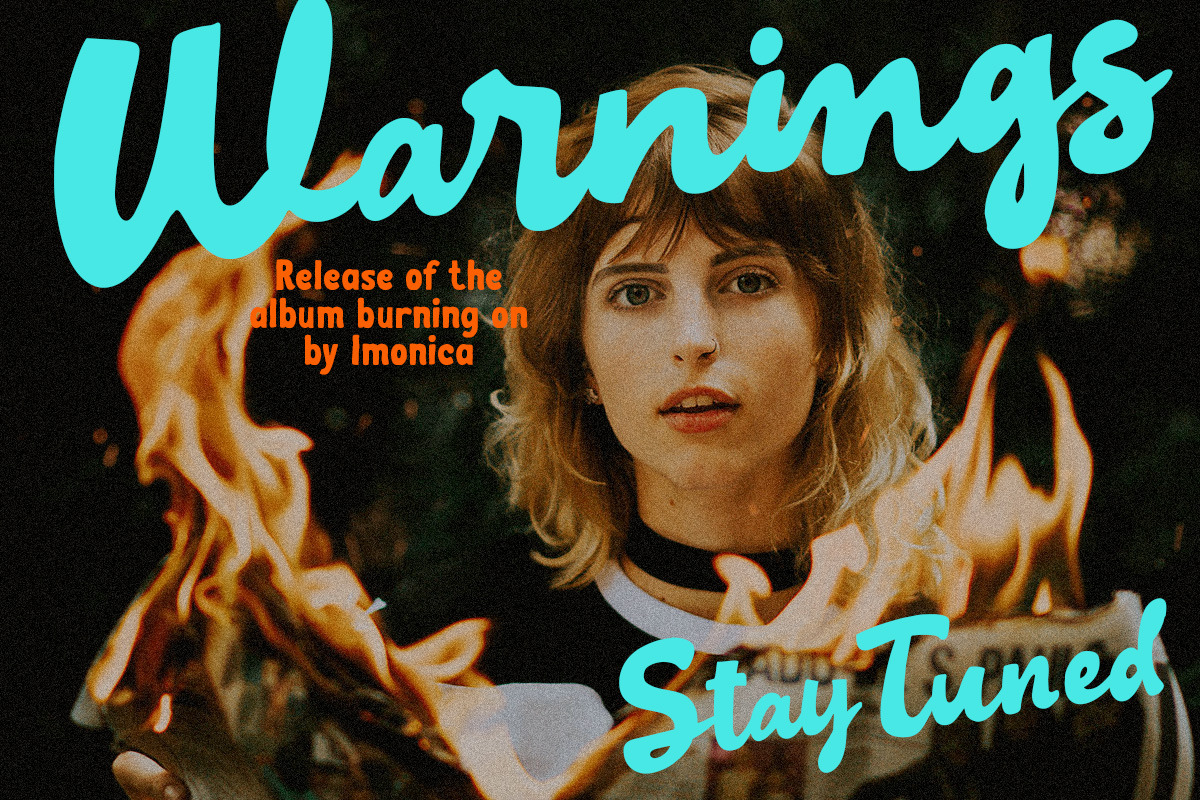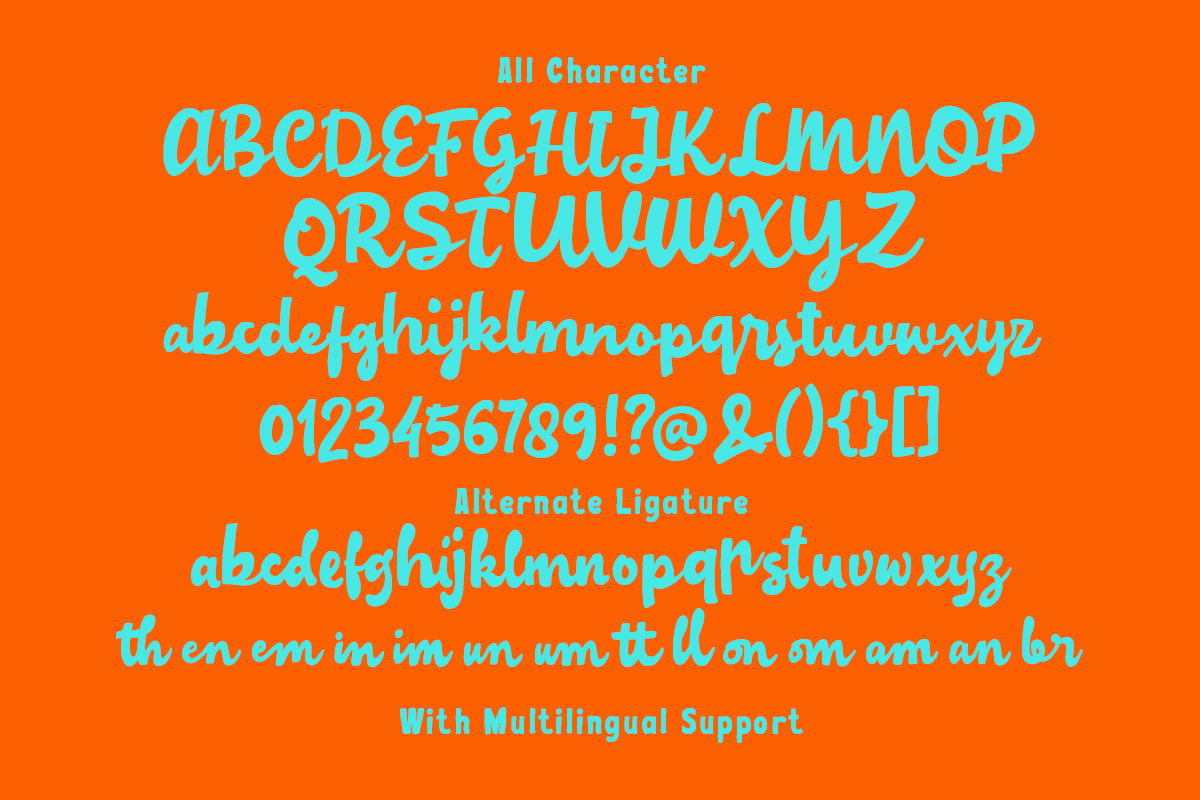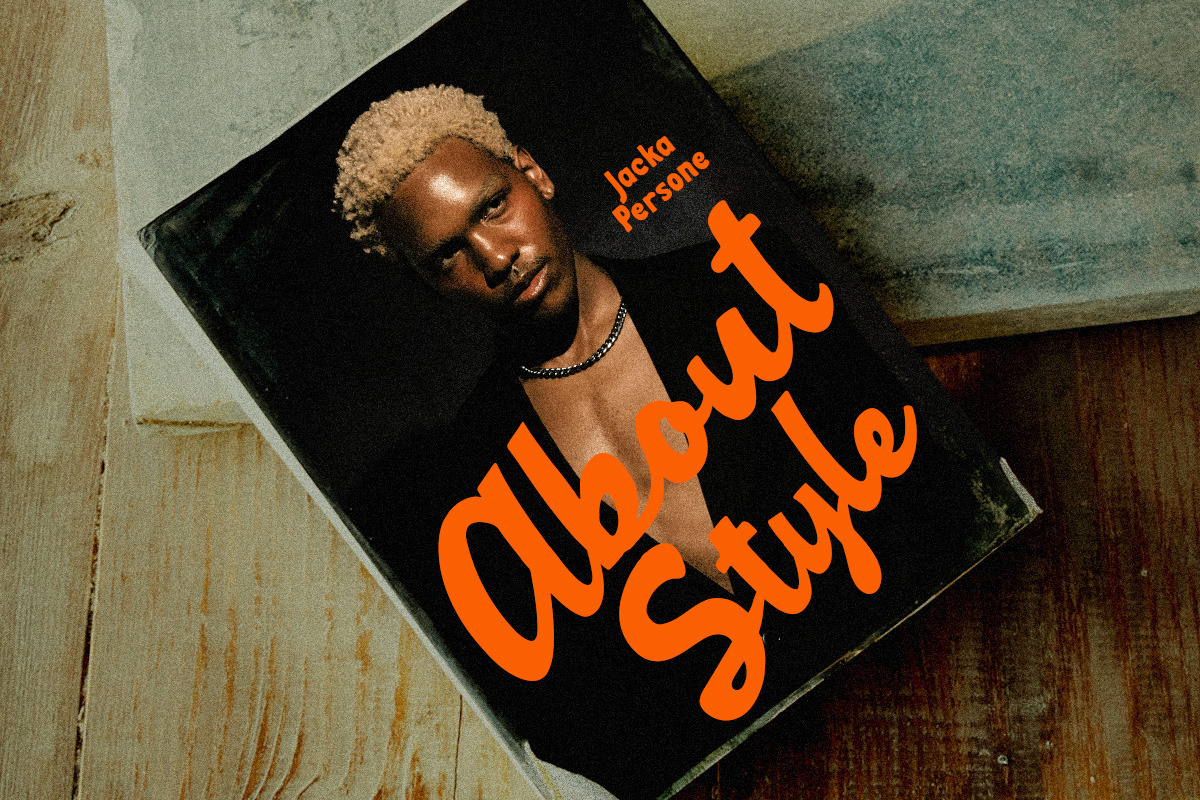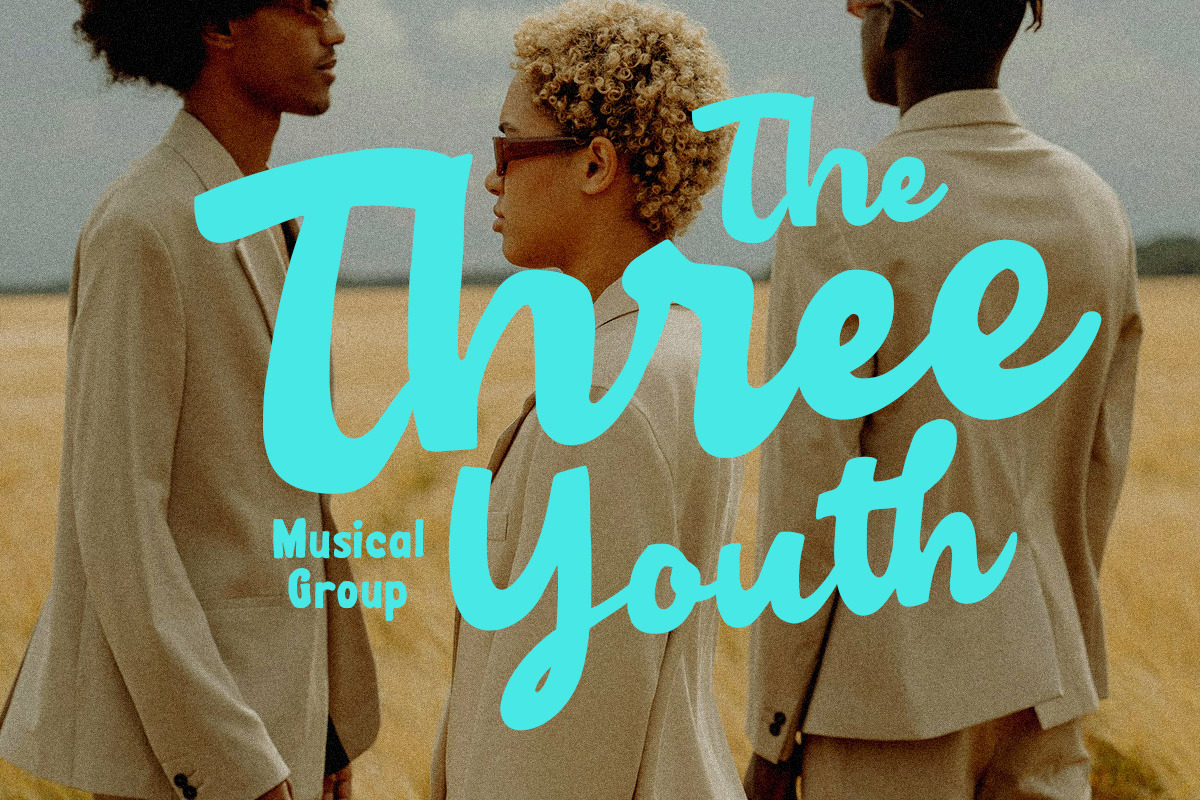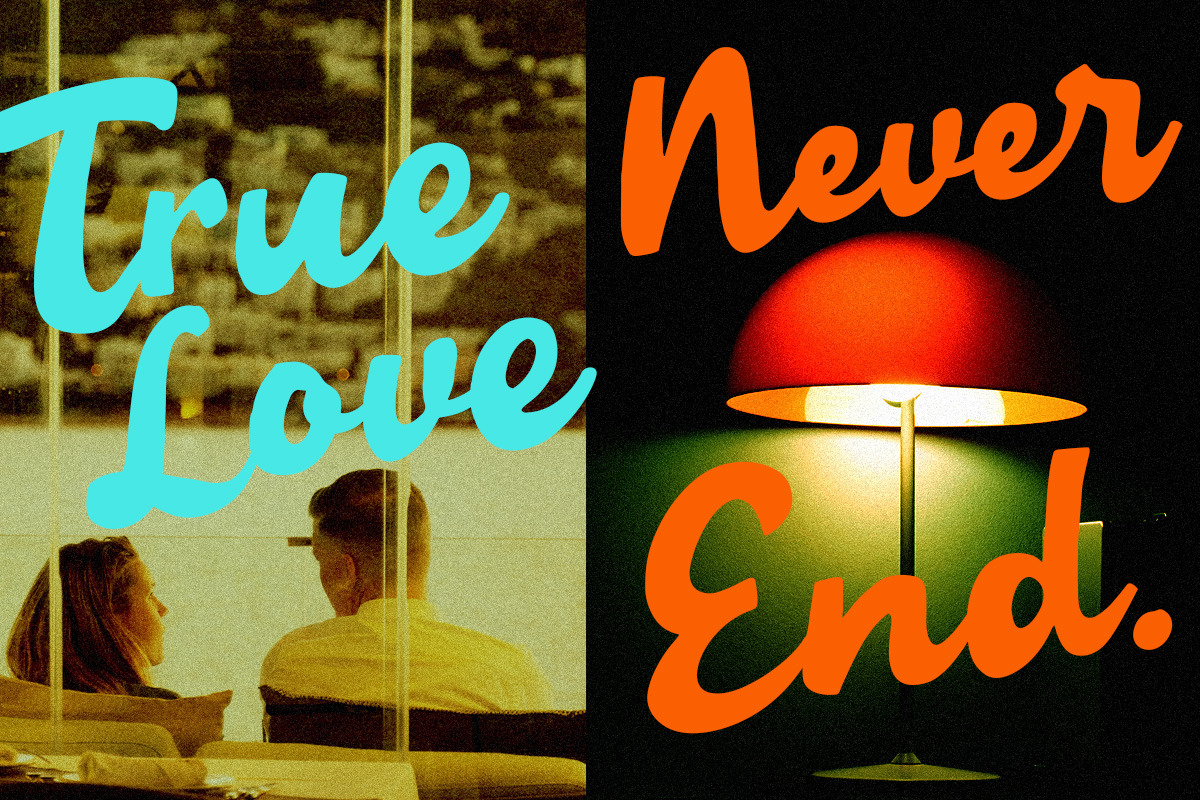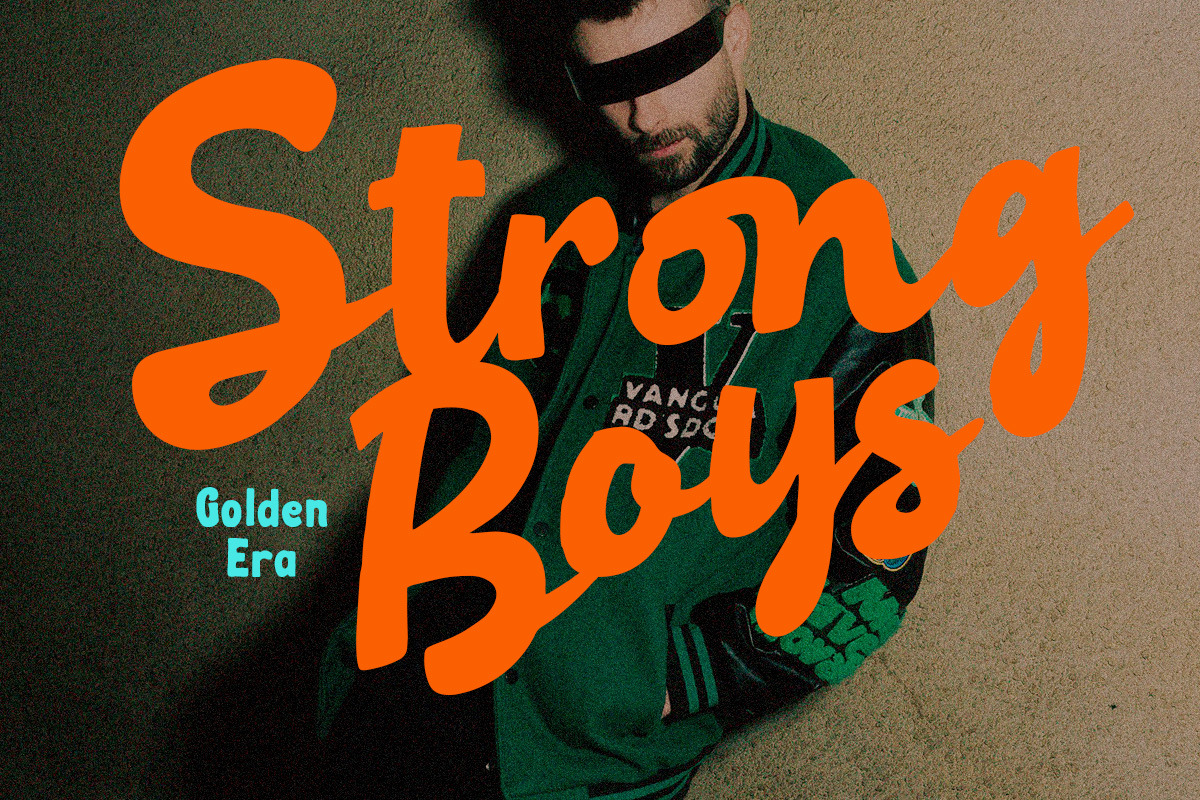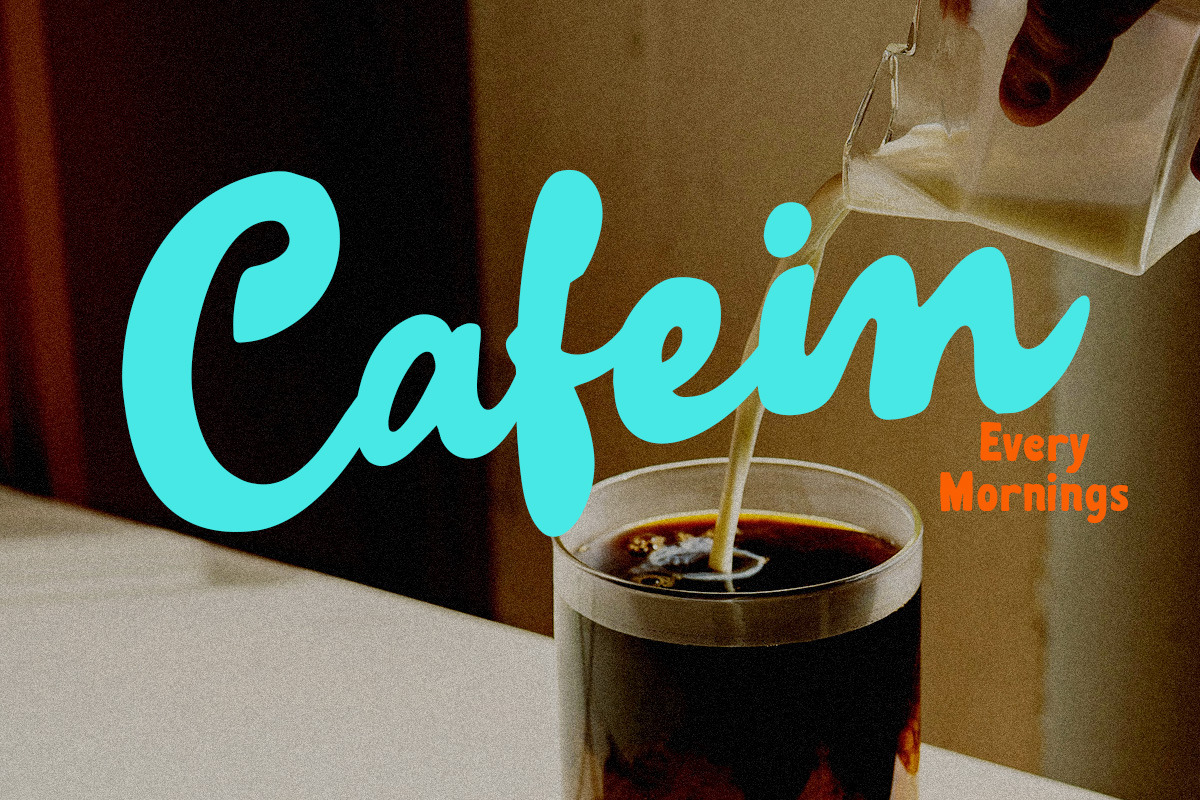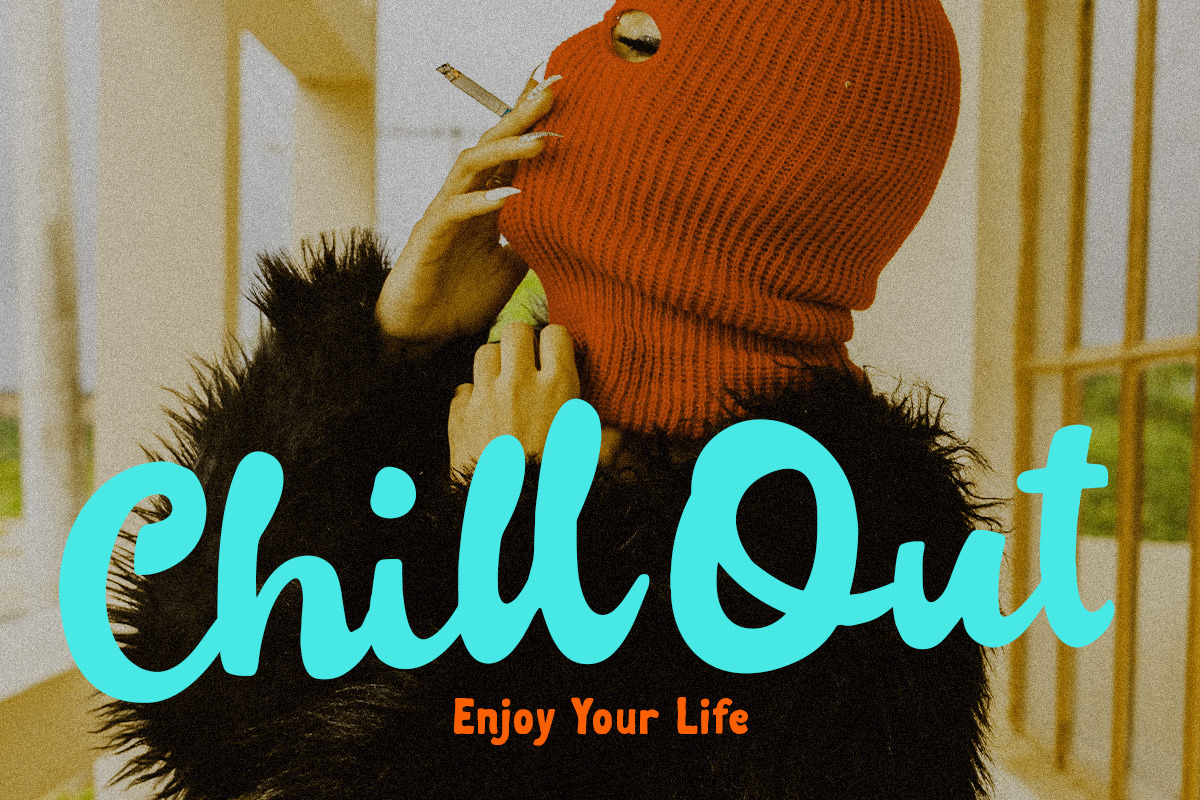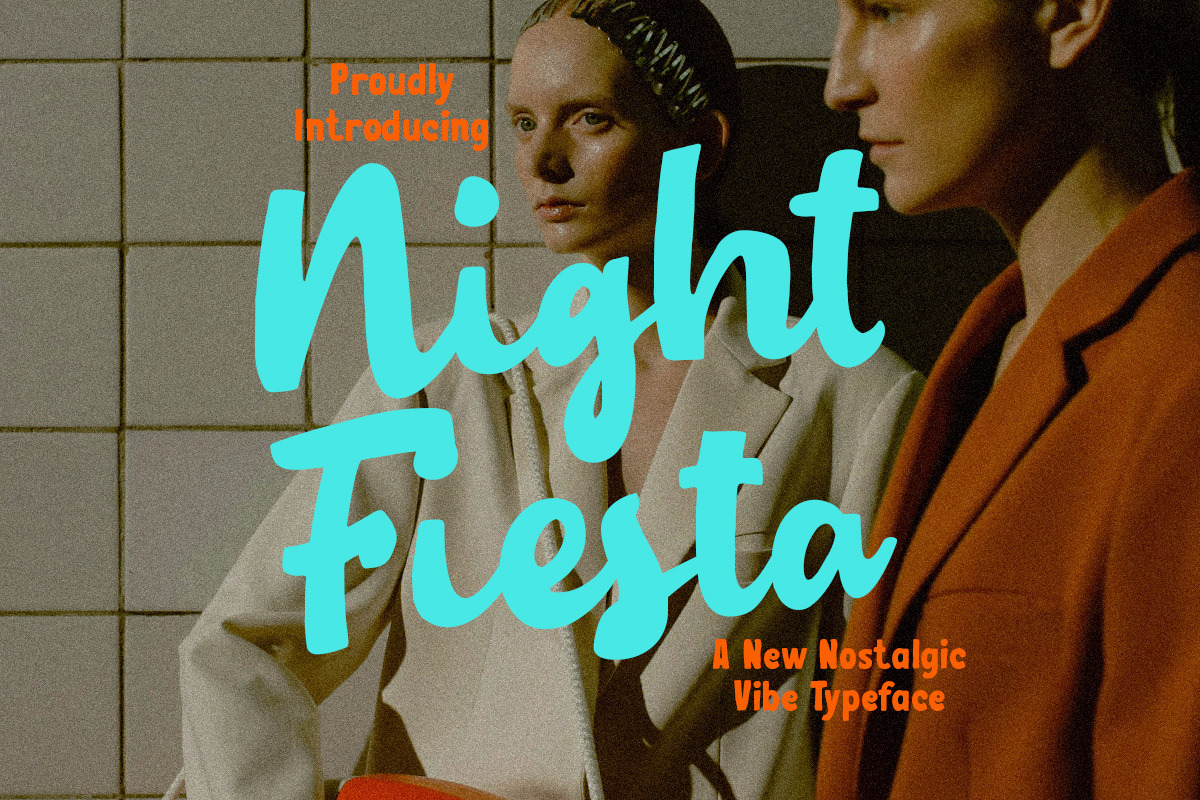
Night Fiesta Nostaligic Font
Night Fiesta is a stylish retro-inspired script font designed to bring energy and flair to any visual project. With its fluid strokes and vintage curves, it captures a nostalgic vibe while remaining clean and versatile for modern use. This typeface is perfect for branding, fashion editorials, packaging, Instagram posts, and anything that calls for bold personality and eye-catching typography.